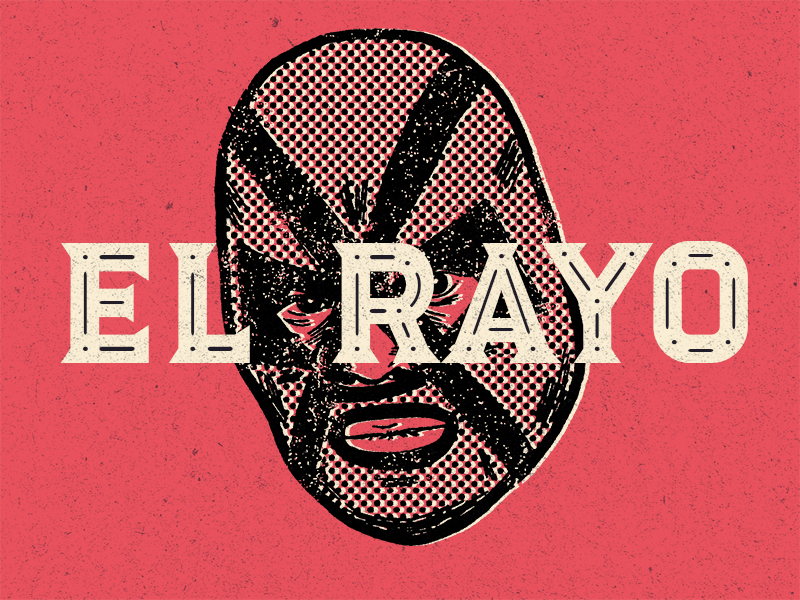
Luchador - el Rayo - New typeface!
I just release a new typeface called Luchador. It started as an update/refresh to one of my earlier typefaces and by accident I kinda slapped a big clunky serif to it and... well. I got this Tequila/Mescal-branding feeling right away and knew that this was going to grow into its own thing.
So here it is, Luchador. I even toyed with the idea of making a dingbat of 26 lucha libre wrestlers to go with it. Maybe I should still do that (I just got to draw 20 more of them)?
Luchador comes in regular and oblique versions with and ornamental Luchador Lines-versions if you want some fancy ornaments on it.